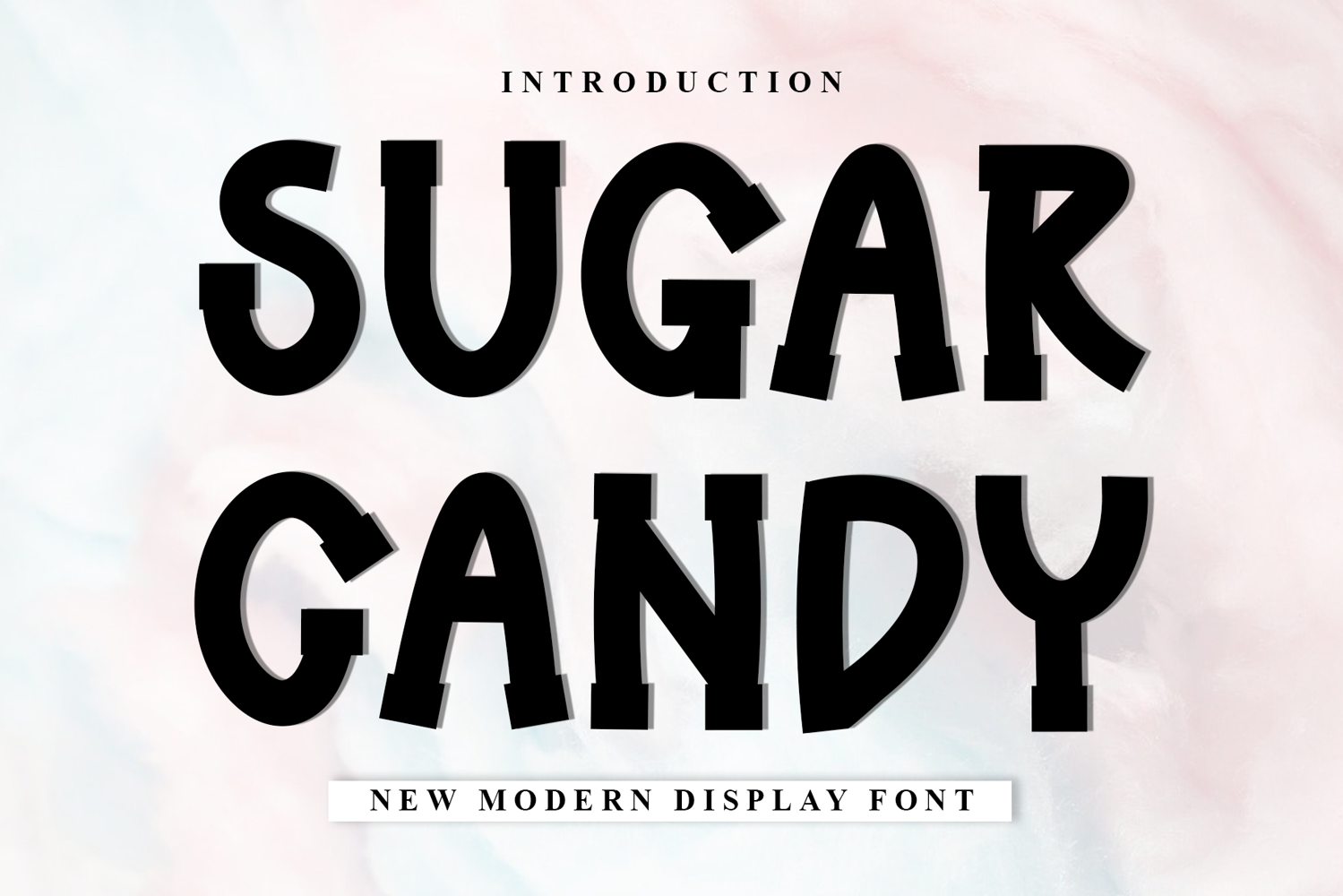
Sugar Candy
Sugar Candy is a beautiful and eye-catching font designed with a soft, unique touch. Its distinctive strokes give it a special character, making it meaningful and versatile for future use. With various characters, it’s perfect for design projects, crafts, and other creative works.